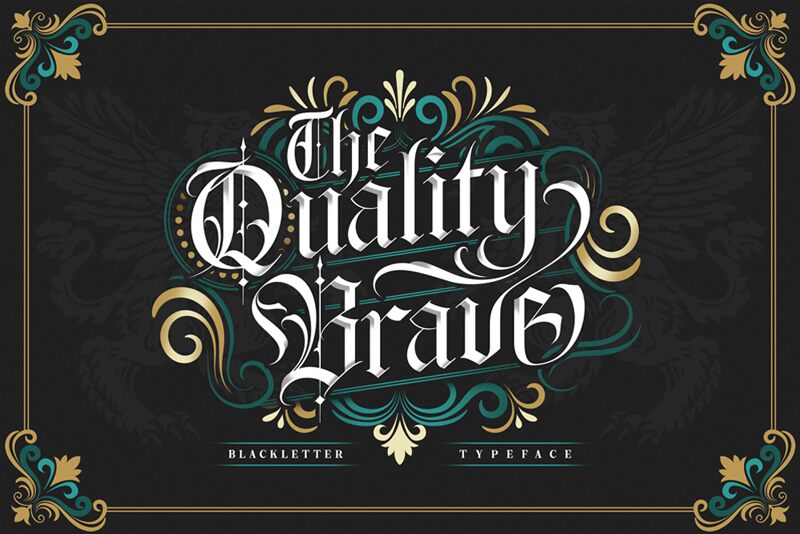
The Quality Brave Regular
The Quality Brave font, crafted by Alit Design, is a semi-light Blackletter gothic typeface that exudes an air of medieval elegance. This versatile font is perfect for adding a touch of old-world charm to any project. Its intricate details and unique letterforms make it suitable for both digital and print media, including logos, book covers, posters, and more. The Quality Brave's semi-light weight ensures legibility while adding a touch of sophistication to your designs. Give your projects the royal treatment they deserve with this stunning Blackletter typeface.